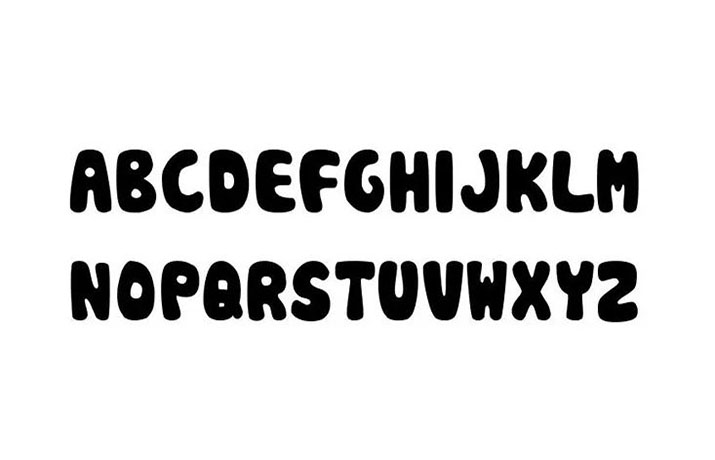
Cookies Font is a fancy cartoon typeface that has a playful and bubbly texture. It’s got chubby characters and a silly look, making it a good choice for kids’ designs.
This unique display typeface offers unusual letterforms, cheerful & rounded shapes, and a fun vibe you just can’t ignore. Try it with a wide range of design projects.
This playful layered font is suitable for a wide range of layout options — from vintage poster designs to album covers to children’s books, banners, flyers, comics, and everything in between.
| Style: | Fancy, Cartoon, Display |